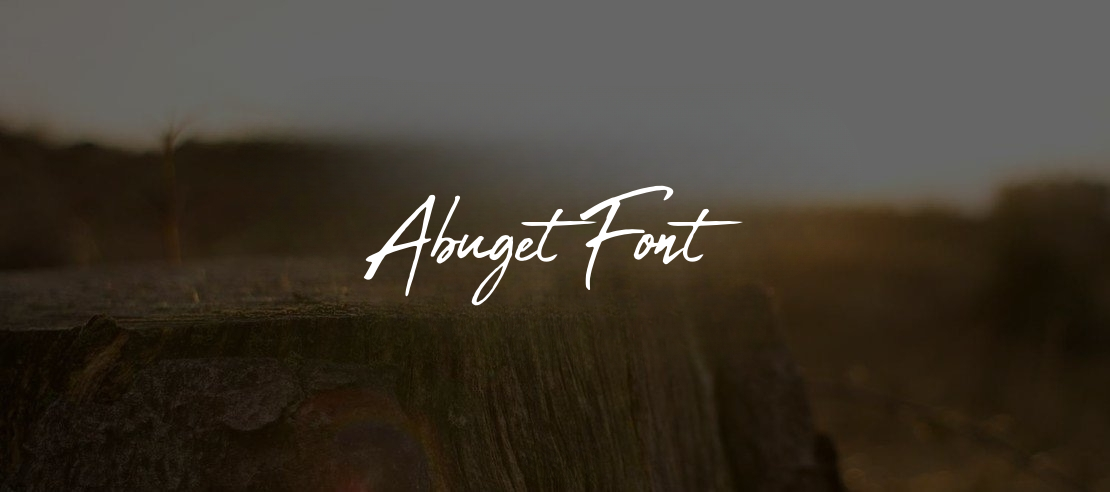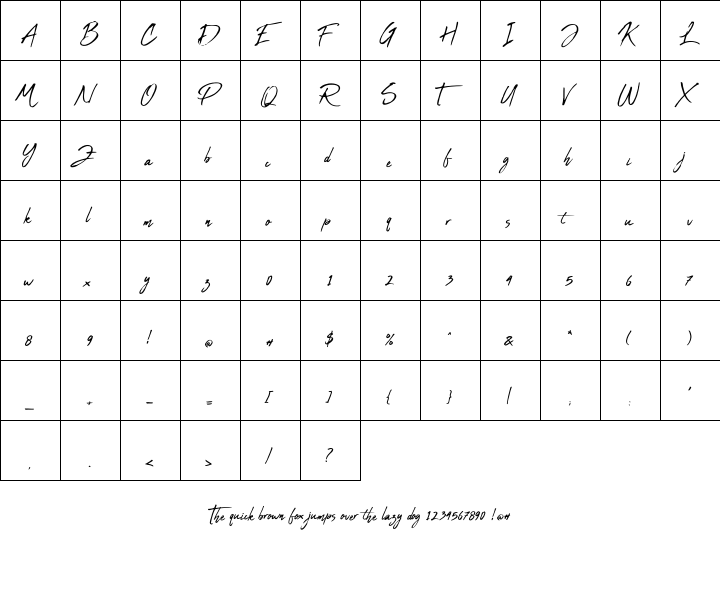
Are looking for an astonishing handwritten font? I am presenting to you a stunning and attractive font Abuget Font. Abuget Font is a handwritten font and it belongs to the script family. This font is consists of an amazing Regular style.
This font contains all character capital and small alphabets, digits, some special characters, and a complete set of glyphs. This font is used in covers, logos, titles, and invitation cards. This font looks like the Angelina Font.
You can use this font with Montserrat Font, Futura Font, Bebas Neue Font, Reman Font, Oswald Font, and Roboto Font to create attractive text styles. You can use this font in fashion magazine covers, T-Shirt designs, Shop names, product packaging, banners, posters, brochure layouts, and many other designing projects.
Designer of Abuget Font
This beautiful and fabulous font is designed by an Indonesian typeface designer Syaf Rizal for Khurasan Foundry.
This font style is created with a unique and regular style. This single attractive style is a combination of various features, including Capital alphabets, Small alphabet, punctuations, glyphs, digits, symbols, special characters, and with a large number of language support,
What is Abuget Font similar to?
Radicalis font is similar to the Abuget font.
Is Abuget Font good for a magazine cover?
Yes, it is a good font for magazines covers. It is also good for titles, banners, products packaging, presentations, shop names, and invitation cards.